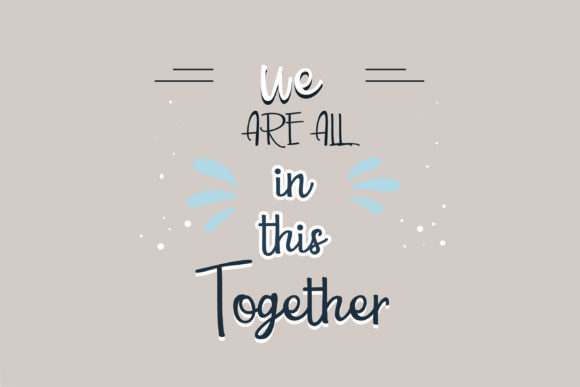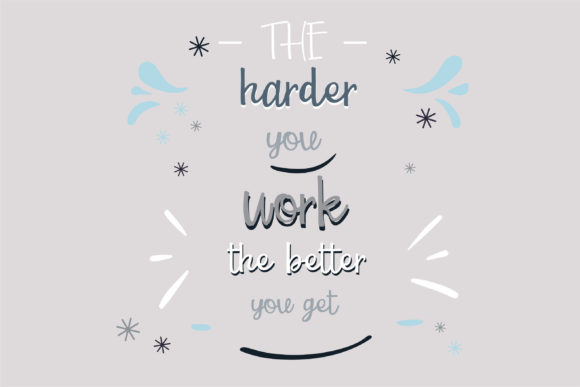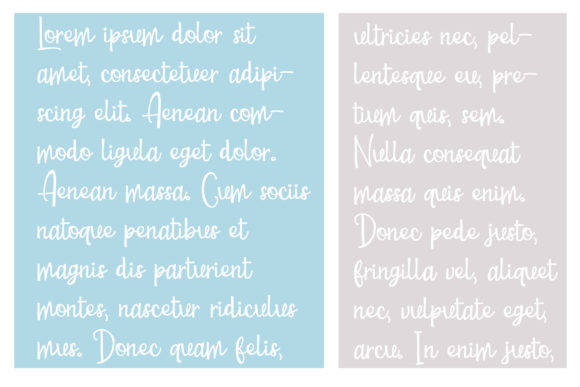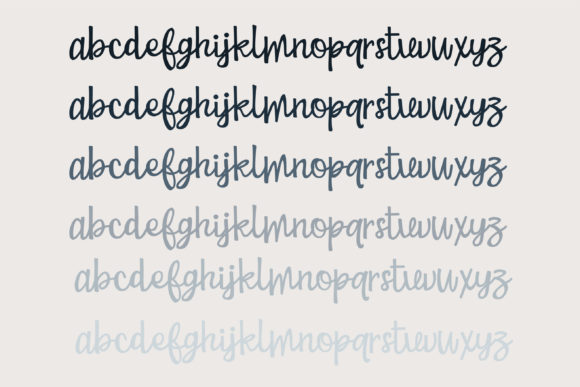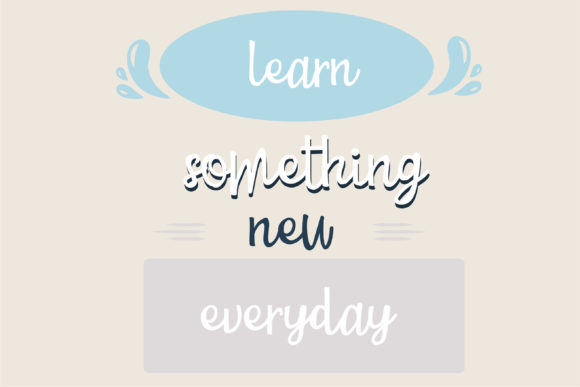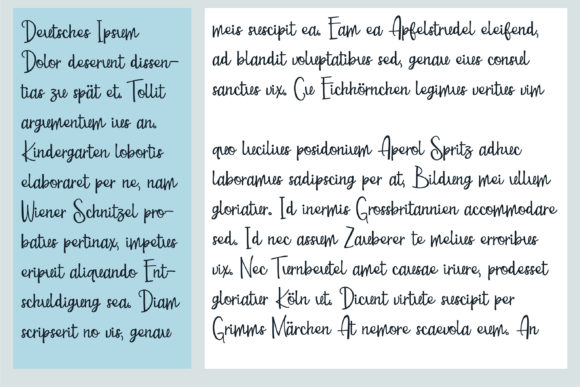
Valimart Font
About Valimart Font
Valimart is a delightful and stylish handwritten font that effortlessly adds a touch of sophistication and charm to your creative projects. With its bouncy and chic characteristics, this font is designed to make your work stand out, creating a visually appealing and memorable impression.
The elegant and curvy lines of Valimart contribute to its overall aesthetic, providing a sense of fluidity and grace. This makes the font particularly well-suited for a variety of applications, ranging from product packaging to branding projects, magazine covers, social media graphics, wedding invitations, and more. The versatility of Valimart allows it to adapt seamlessly to diverse design needs, making it a valuable asset in your creative toolkit.
The playful and bouncy nature of the font adds a dynamic quality to your text, making it suitable for projects that require a lively and modern feel. Whether you’re working on a vibrant social media campaign or a romantic wedding invitation, Valimart has the flexibility to complement the mood and theme of your design.
The font’s suitability for product packaging and branding projects is particularly noteworthy. In these contexts, Valimart can help establish a unique and memorable visual identity for your brand. Its handwritten quality adds a personalized touch, creating a connection with the audience and conveying a sense of authenticity.
Moreover, Valimart’s adaptability to various backgrounds makes it a versatile choice for design compositions. Whether you want your text to pop on a colorful background or blend seamlessly with a more subdued palette, this font allows you to express your words effectively and aesthetically.
In summary, Valimart is not just a font; it’s a creative tool that enhances the visual appeal of your projects. Its elegance, bounciness, and chic characteristics make it a standout choice for anyone looking to infuse their designs with style and personality. Explore the possibilities that Valimart offers to elevate your work and leave a lasting impact on your audience.